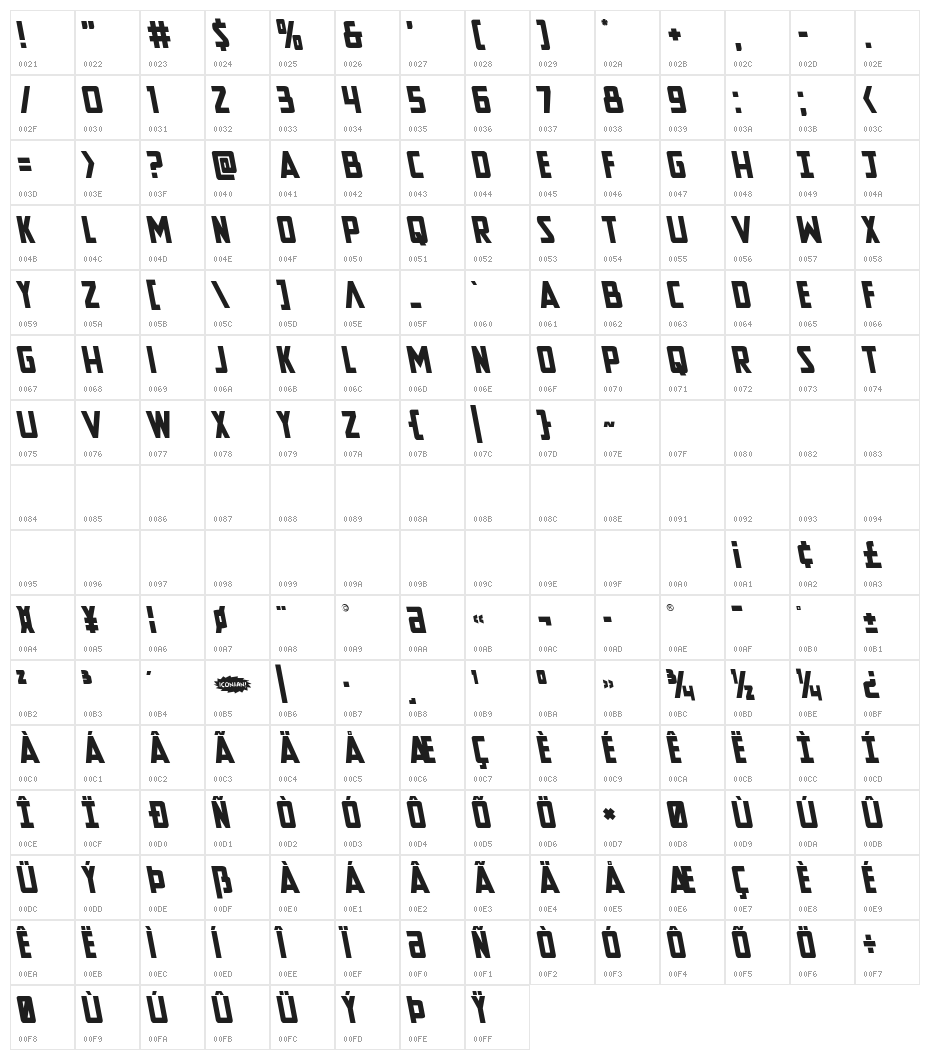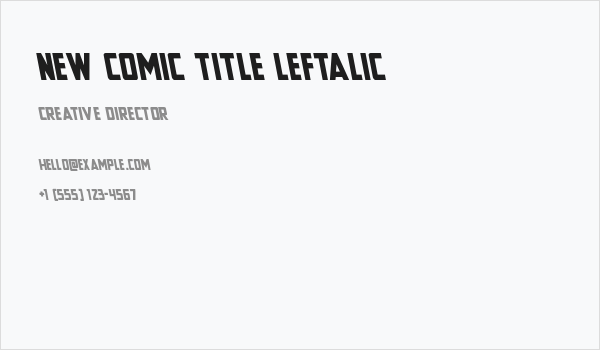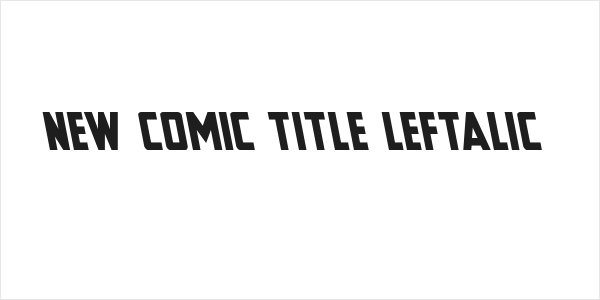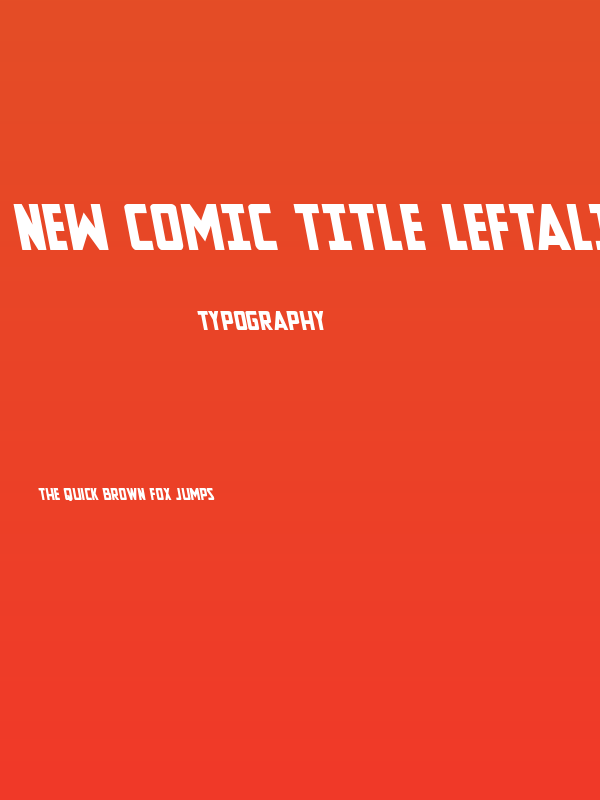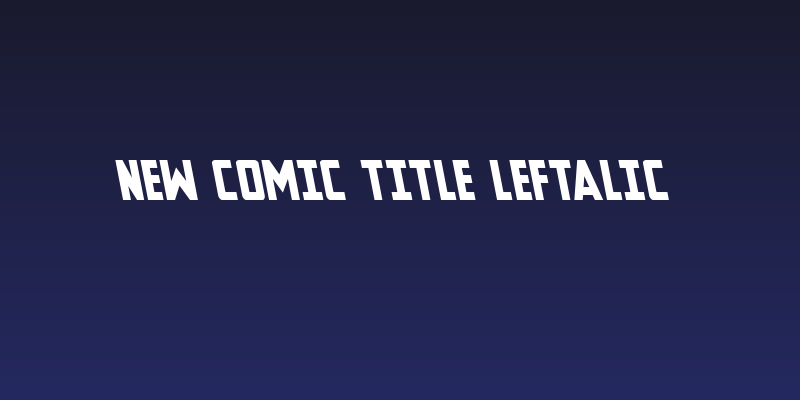
New Comic Title Leftalic Font
New Comic Title Leftalic Description
This font features a bold, angular design with a distinct slant to the left, giving it a dynamic and energetic appearance. The characters are uniformly thick, creating a strong visual impact. The uppercase and lowercase letters maintain a consistent style, with sharp edges and a geometric structure. The numbers and special characters follow the same bold and slanted design, ensuring cohesion across all elements. This font's unique style makes it stand out, ideal for projects that require a modern and assertive look.
| Proposed Projects | Ideal for comic book titles, posters, video game graphics, and branding that requires a bold, dynamic look. |